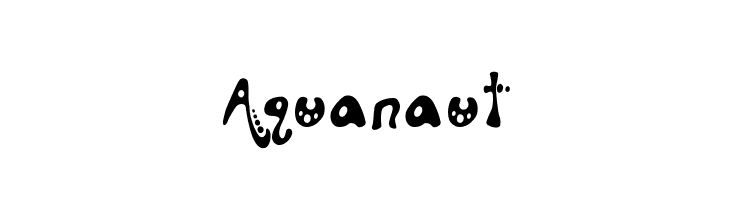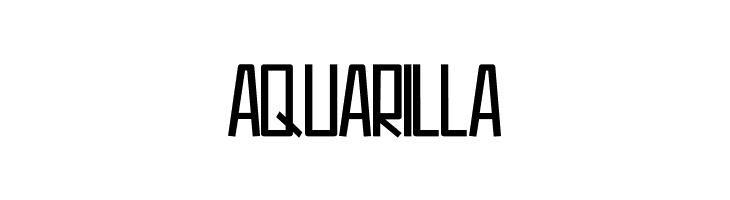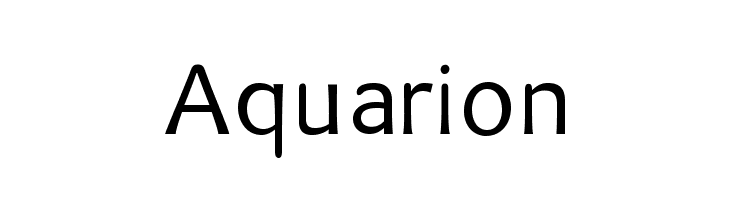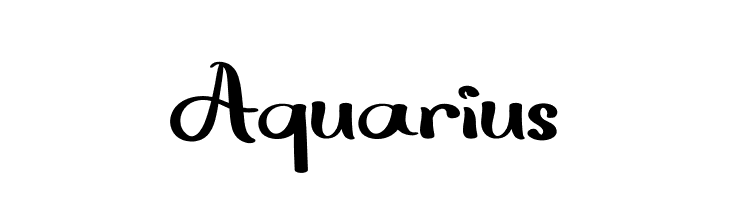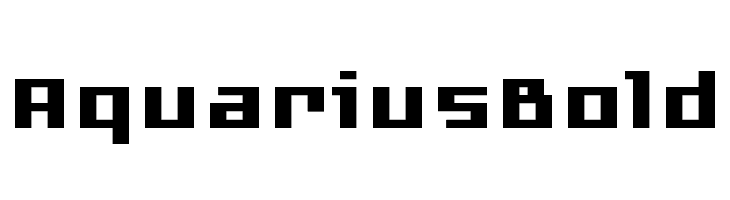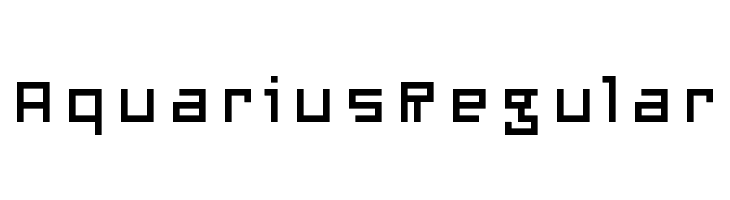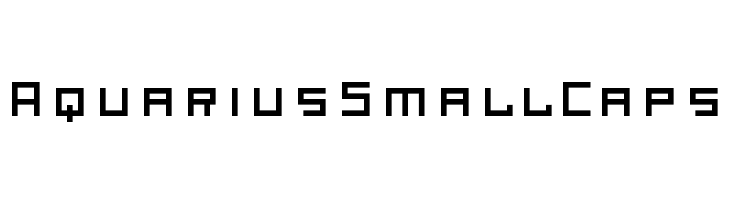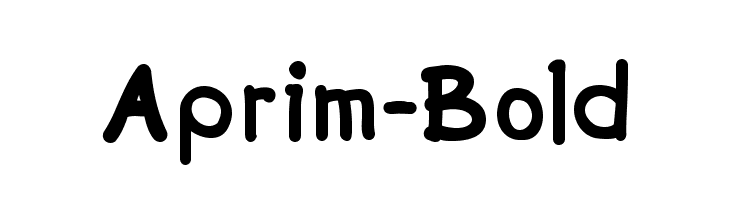
A modern, geometric font with elongated, narrow letterforms and consistent stroke width.
A modern sans-serif font with clean lines and rounded edges.
A bold, playful handwritten font with thick strokes and a whimsical style.
A bold, playful script font with a whimsical, hand-drawn style.
A bold, pixelated font with a retro, digital aesthetic.
A monospaced font with a digital, retro aesthetic and geometric design.
A pixelated, blocky font with a retro digital style.
A pixelated, geometric font with a retro digital aesthetic.